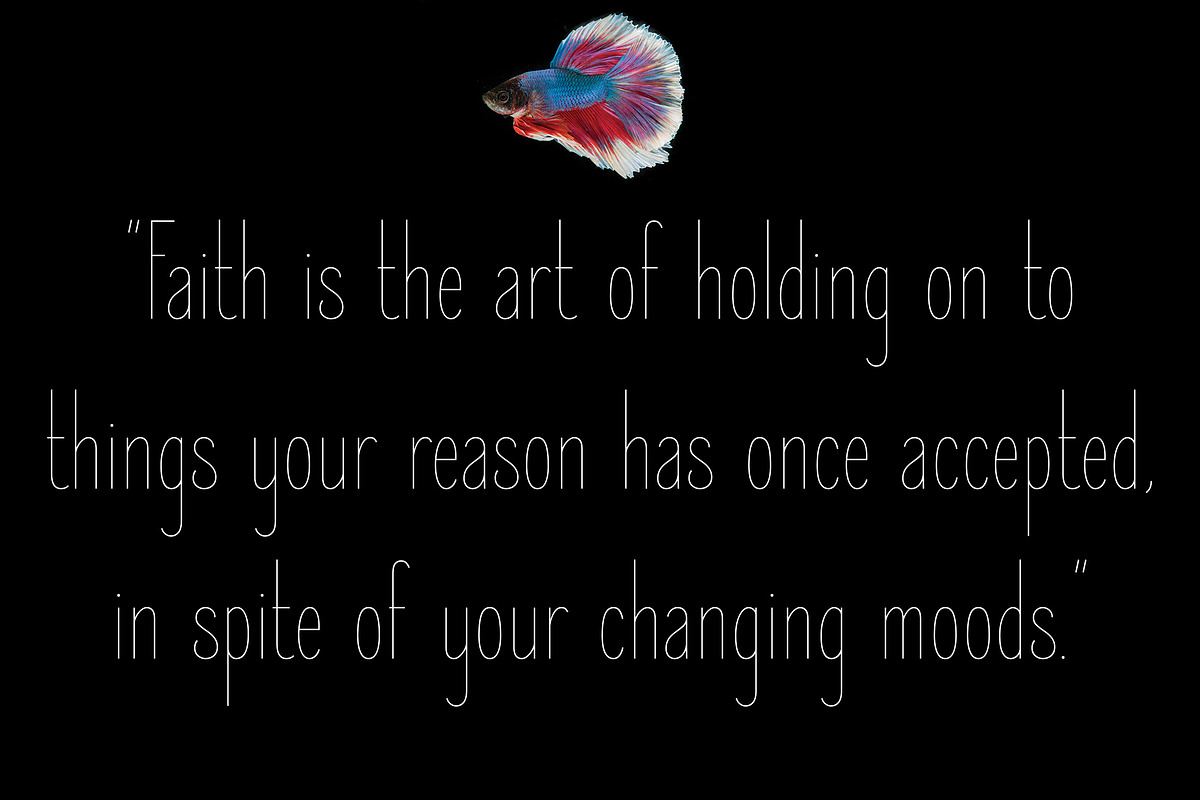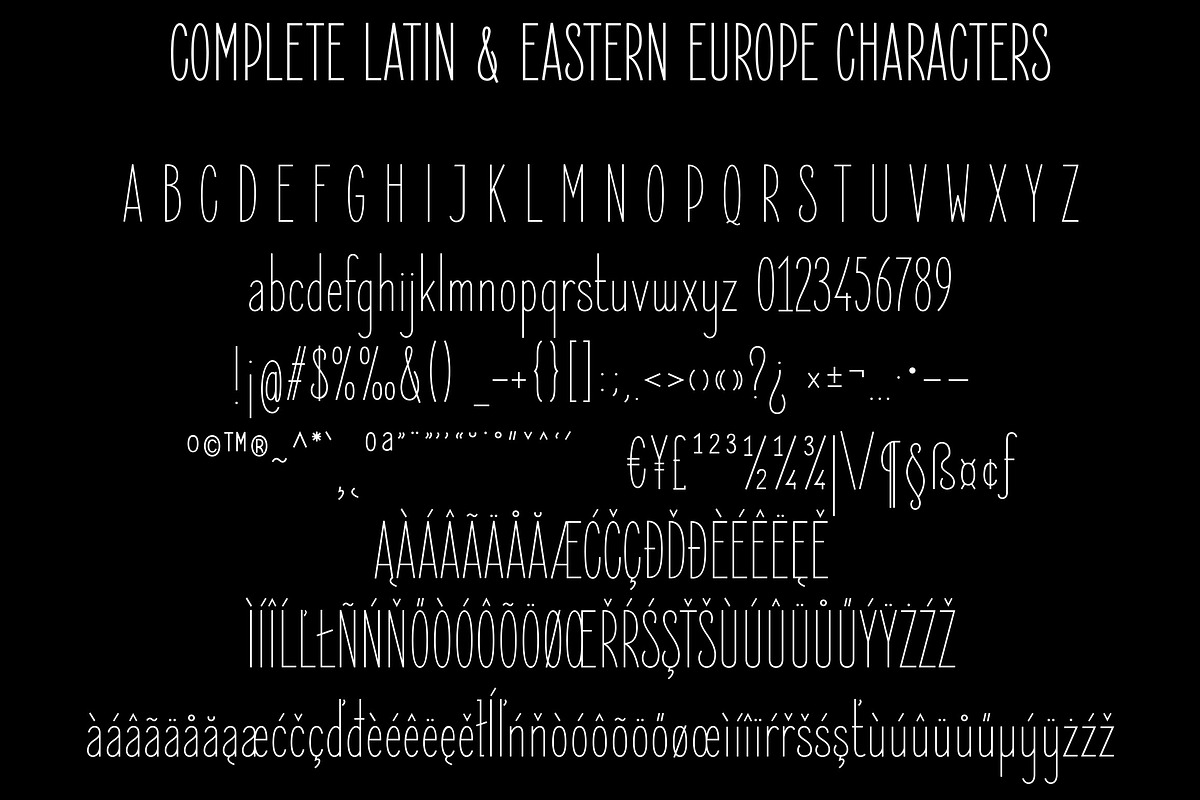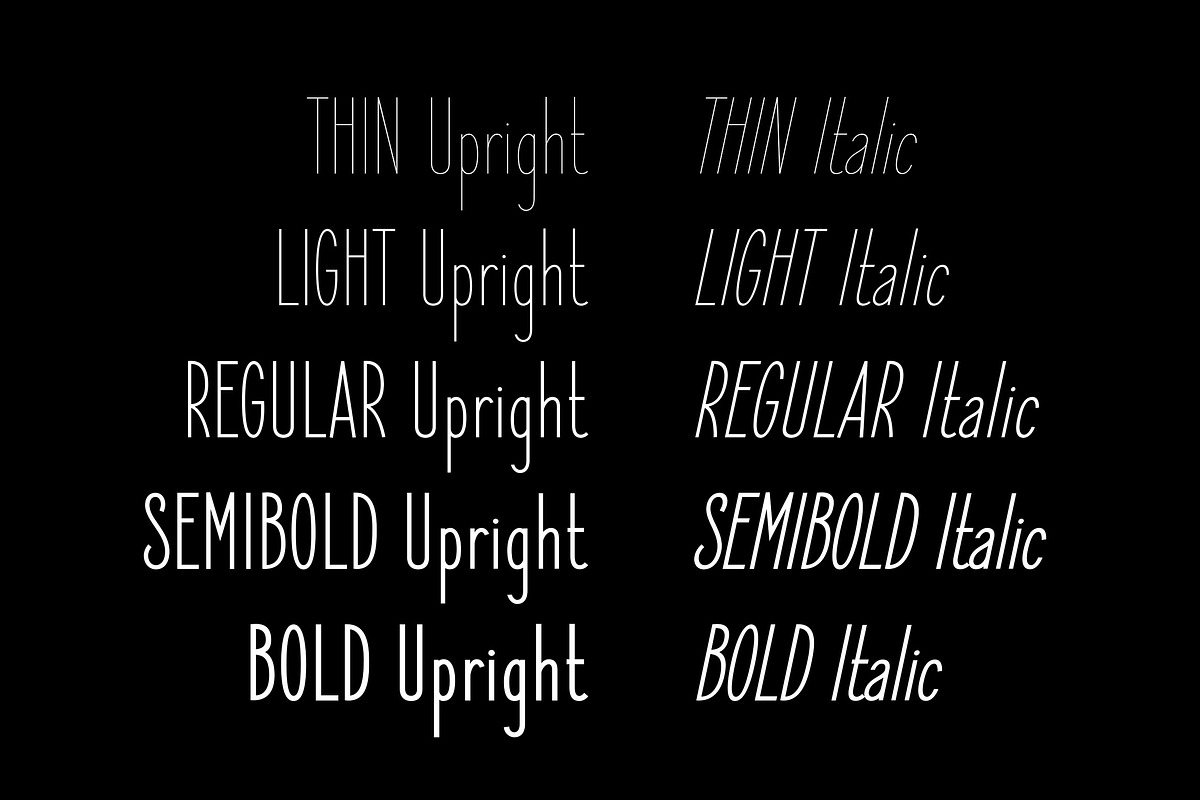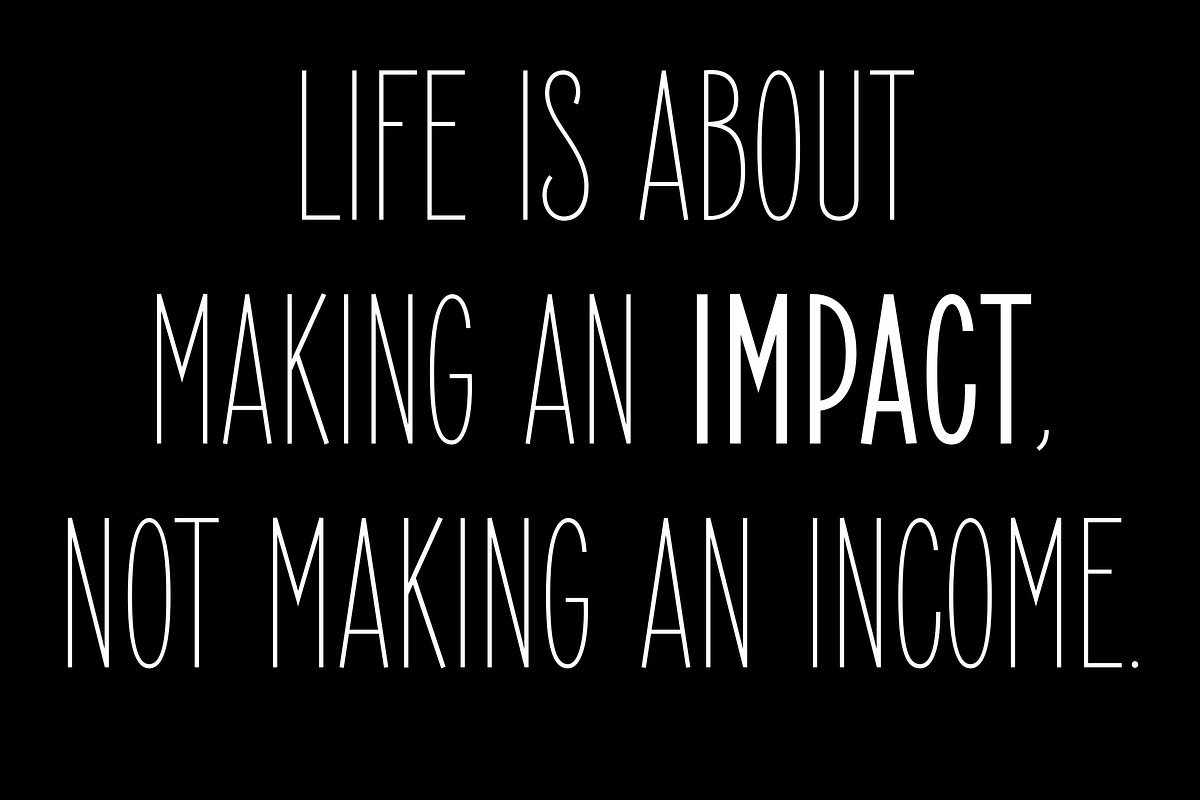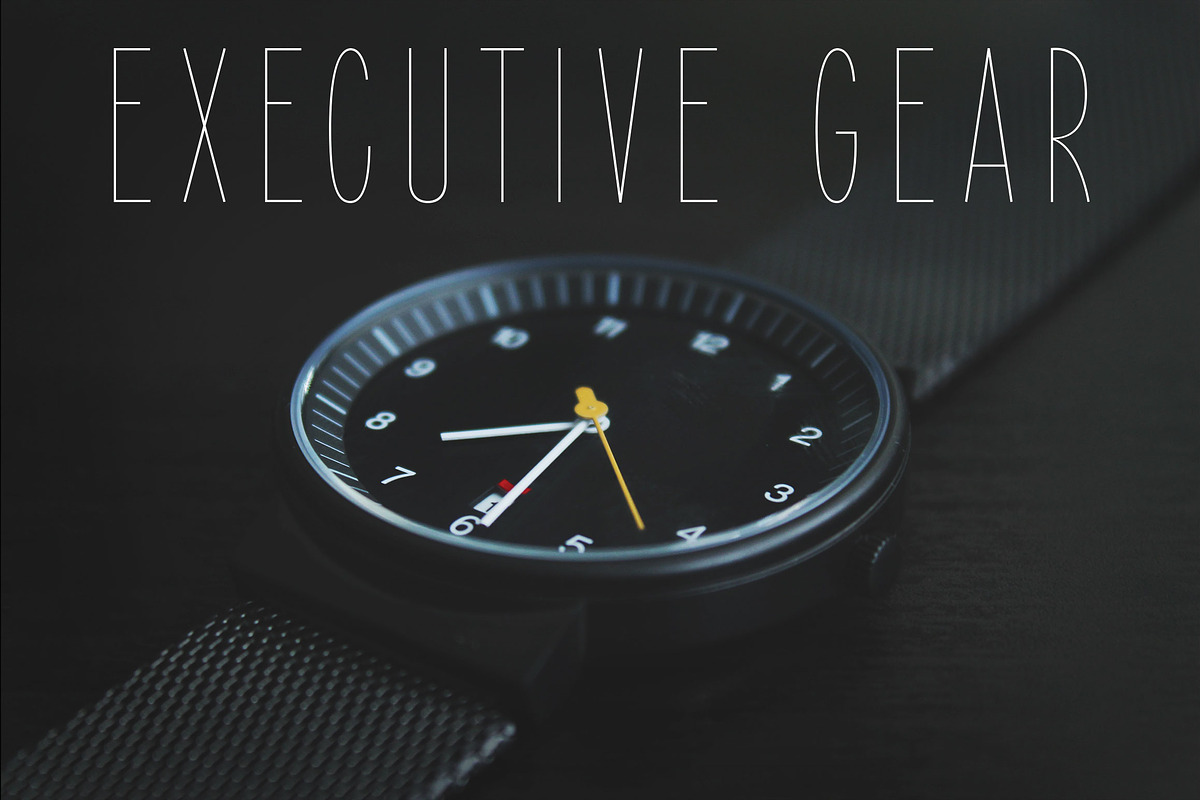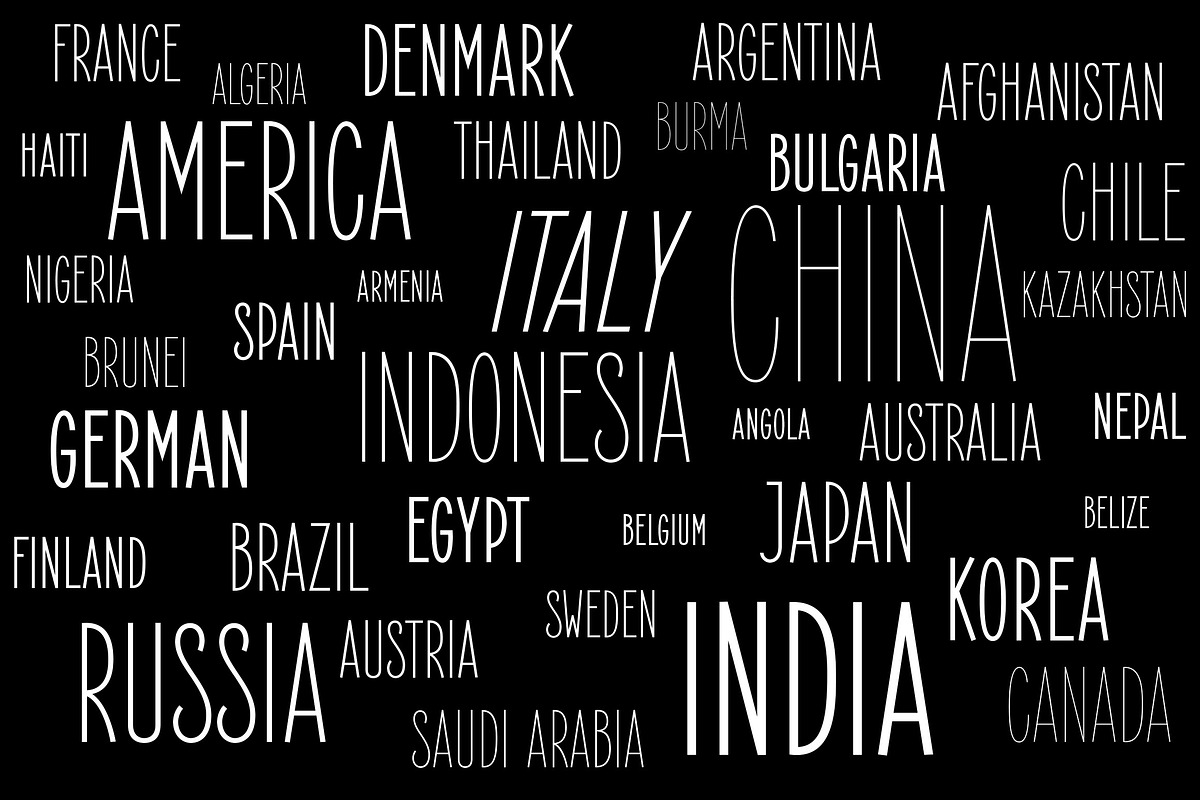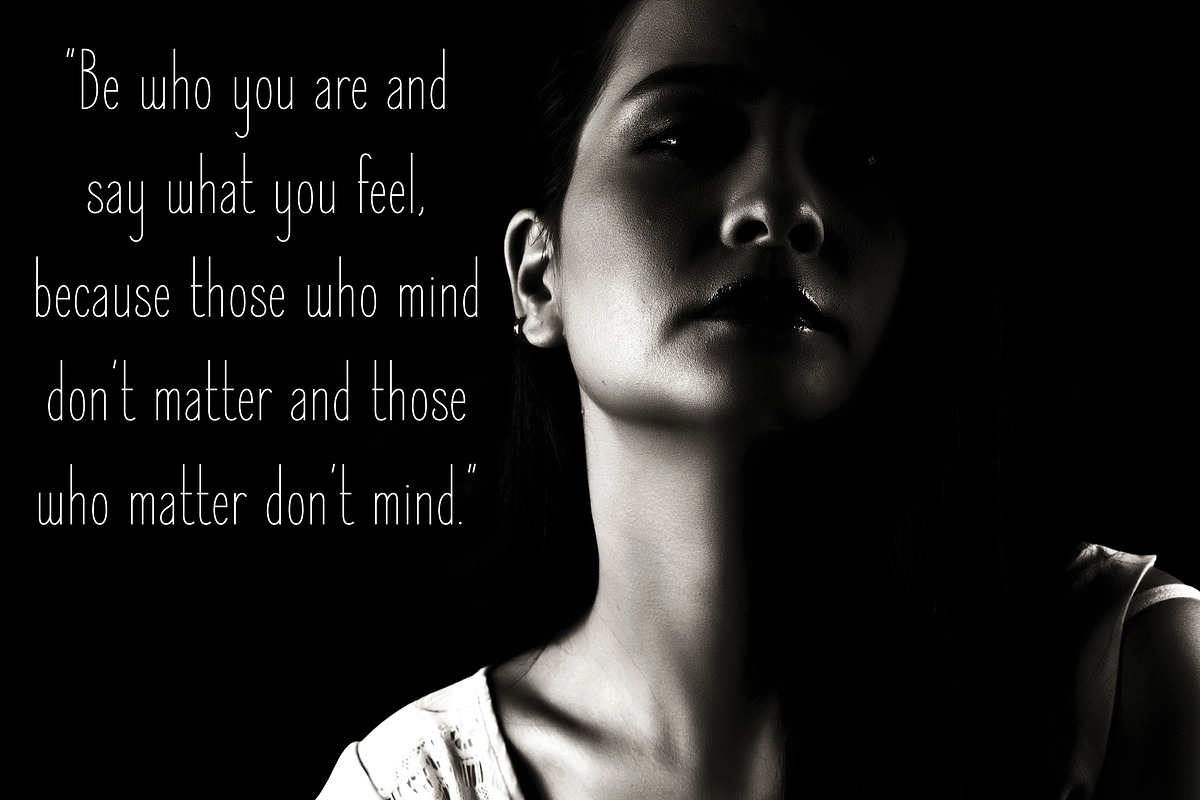
Elegant Sans Font Family
Introducing my new slim elegant sans serif font! In many time I need condensed slim elegant font, so I create my own font for my projects need, and I sure you also need this elegant typeface. This typeface will suitable for luxury logo, header, subtitle, package text, especially when you need condensed text or many space with extra tracking.
This font have 284 glyphs and available in 5 weight and slanted/Italic version.
Elegant Sans Font Family by Royaltype fits naturally into Branding, posters, packaging, typography.